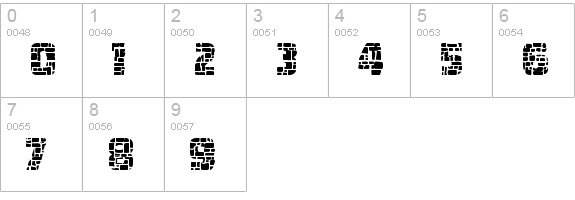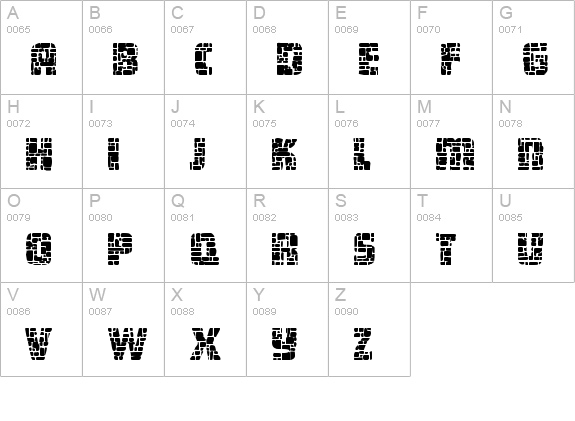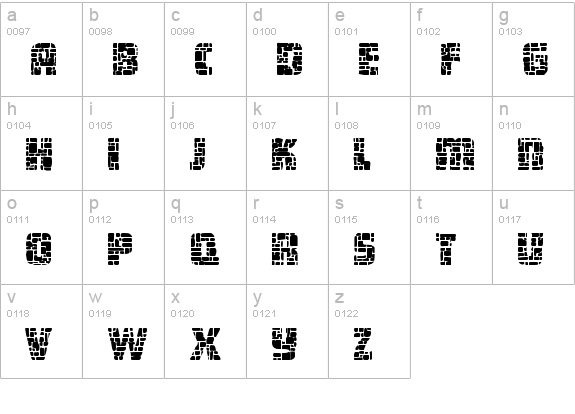
Dungeon Blocks Filled font is a captivating and bold typeface that captures the essence of ancient dungeons and mysterious adventures. With its rugged and blocky design, this font is perfect for creating eye-catching titles, posters, and designs that evoke a sense of fantasy and adventure. Featuring intricate details and a unique style, Dungeon Blocks Filled font is sure to stand out and make a statement in any project. Whether you're designing a game, a book cover, or a themed event invitation, this font will add a touch of magic and intrigue. Best of all, Dungeon Blocks Filled font is available for free download at FontsMarket.com. So go ahead and unleash your creativity with this fantastic font today!